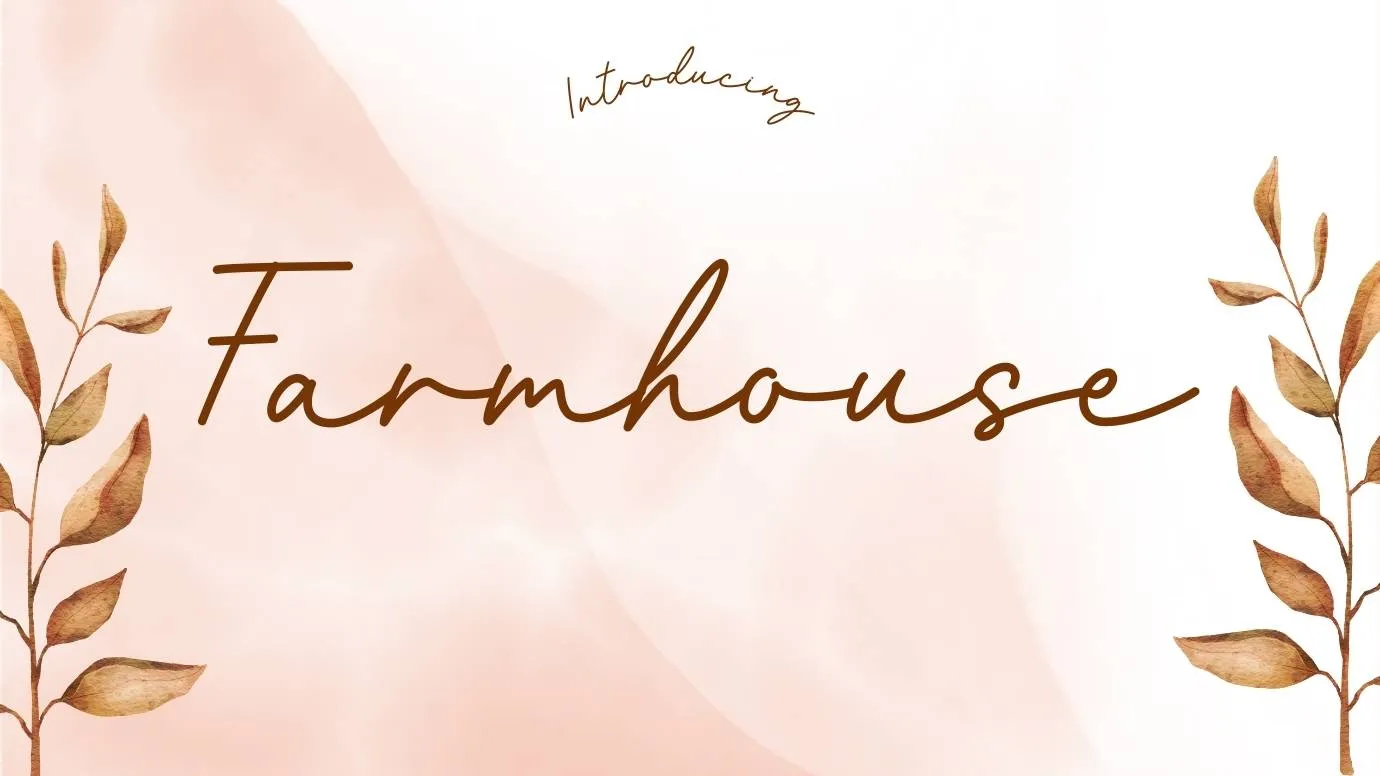
Farmhouse Font Free Download
Farmhouse Font Family is a unique script typeface that has thin and small swashes. This font family has attractive ligatures and stylistic alternates. Creativeletter is the main designer of this unique font.
It comes in both OTF and TTF file formats. The texture of this bold and italic swash font is suitable for different script text designs. Many designers pick this font and use it for titling purposes.
Farmhouse Font